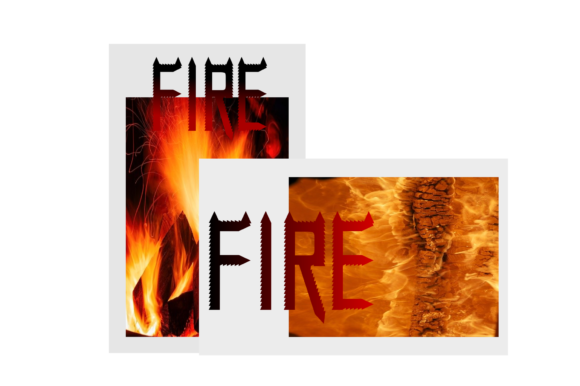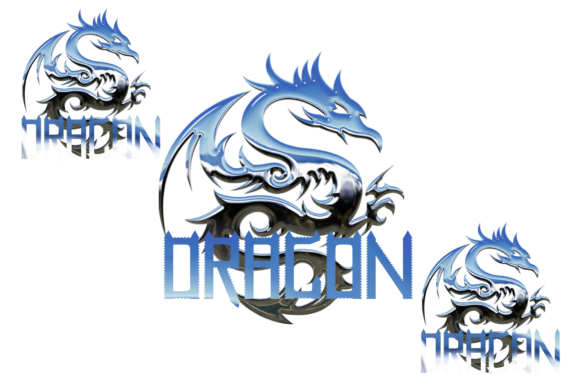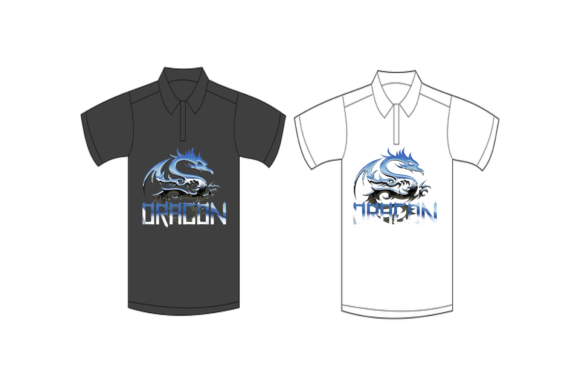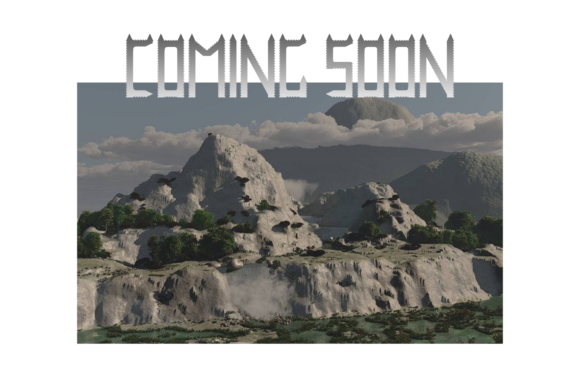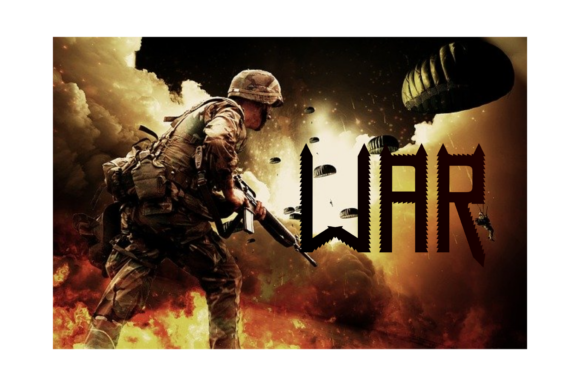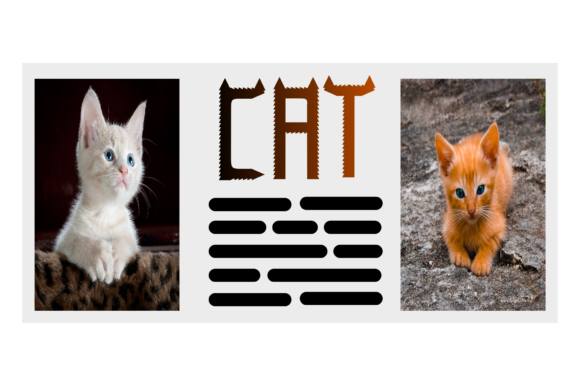
Introducing Castle Font: Elevate Your Designs with a Touch of Grandeur
Are you tired of using the same old fonts in your designs? Do you want to add a touch of uniqueness and grandeur to your creative projects? Look no further than Castle Font, a distinctive and eye-catching display font that’s sure to make your designs stand out. In this article, we’ll explore the features and benefits of Castle Font, and show you how to incorporate it into your design workflow.
What is Castle Font?
Castle Font is a one-of-a-kind display font that’s inspired by the grandeur and majesty of medieval castles. With its bold, rugged, and intricate letterforms, Castle Font is perfect for designers and crafters who want to add a touch of drama and sophistication to their designs. Whether you’re working on a logo, poster, or social media graphic, Castle Font is sure to make a lasting impression.
Key Features of Castle Font
• Unique Letterforms: Castle Font features intricate and detailed letterforms that are inspired by medieval architecture.
• Bold and Rugged: The font has a bold and rugged appearance that’s perfect for making a statement.
• Highly Legible: Despite its ornate design, Castle Font is highly legible and easy to read.
• Versatile: Castle Font can be used for a wide range of design projects, from logos and posters to social media graphics and more.
Benefits of Using Castle Font
So why should you choose Castle Font for your design projects? Here are just a few benefits of using this unique and interesting display font:
• Adds Visual Interest: Castle Font adds a touch of visual interest to your designs, making them more engaging and attention-grabbing.
• Creates a Lasting Impression: The font’s bold and rugged appearance creates a lasting impression on your audience, making your designs more memorable.
• Perfect for Branding: Castle Font is perfect for branding projects, as it adds a touch of sophistication and elegance to your logo and marketing materials.
How to Use Castle Font in Your Designs
Using Castle Font in your designs is easy. Here are a few tips to get you started:
• Pair with a Simple Font: Pair Castle Font with a simple font to create contrast and make your design more visually appealing.
• Use for Headings: Use Castle Font for headings and titles to add a touch of drama and sophistication.
• Experiment with Colors: Experiment with different colors and textures to add depth and interest to your design.
• Use for Large Text: Use Castle Font for large text, such as posters and billboards, to make a bold statement.
If you’re a designer or crafter looking to incorporate Castle Font into your workflow, here are a few tips to keep in mind:
• Be Creative: Don’t be afraid to experiment and try new things with Castle Font.
• Keep it Simple: Keep your design simple and clean to let Castle Font be the focal point.
• Use for Special Projects: Use Castle Font for special projects, such as holiday cards and event invitations, to add a touch of elegance and sophistication.
In conclusion, Castle Font is a unique and interesting display font that’s perfect for designers and crafters who want to add a touch of grandeur and sophistication to their designs. With its bold, rugged, and intricate letterforms, Castle Font is sure to make your designs stand out. Whether you’re working on a logo, poster, or social media graphic, Castle Font is a great choice. So why not give it a try and see how it can elevate your designs?